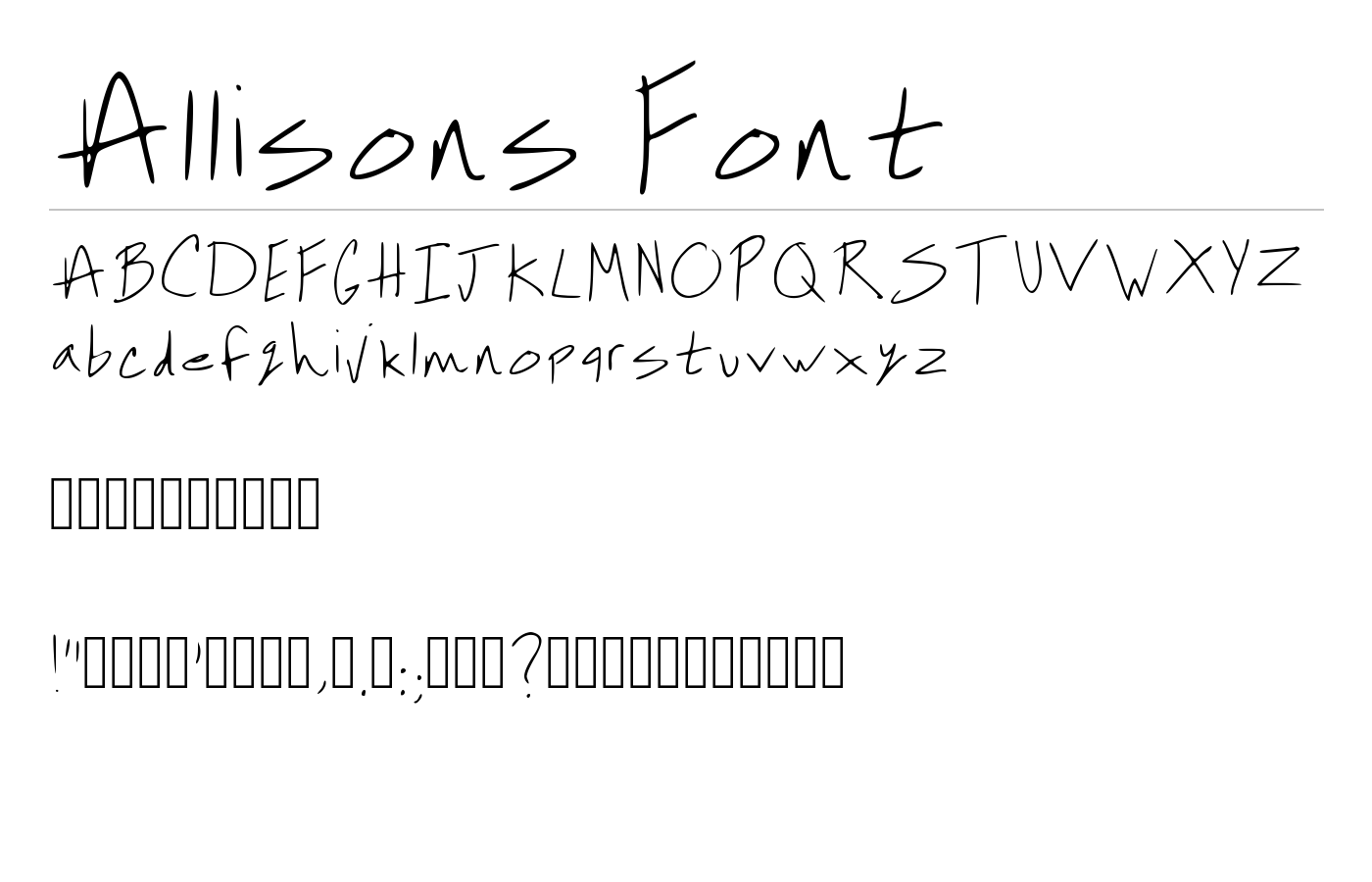
Allisons Font is a casual, handwritten sans serif with a light weight and narrow proportions that give it a playful and personal touch. Its uneven, slightly quirky letterforms make it feel approachable and informal, ideal for projects that want to convey friendliness and creativity. This font works well for invitations, personal branding, and informal headlines where a handwritten, authentic look is desired.
Allisons Font
About Allisons Font